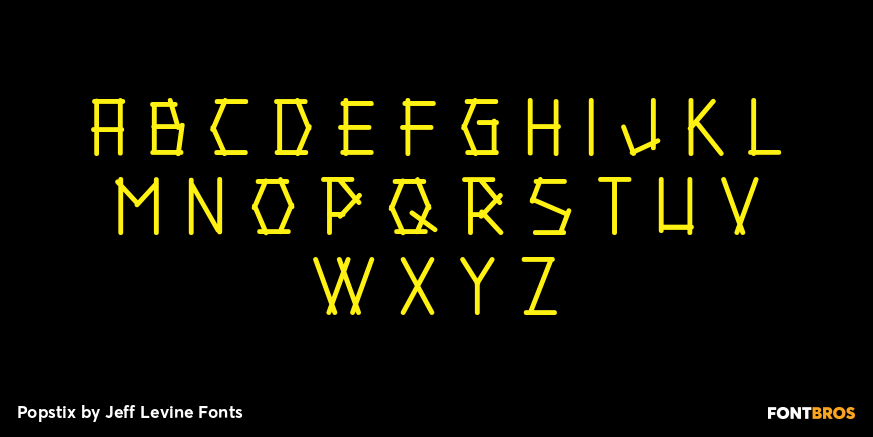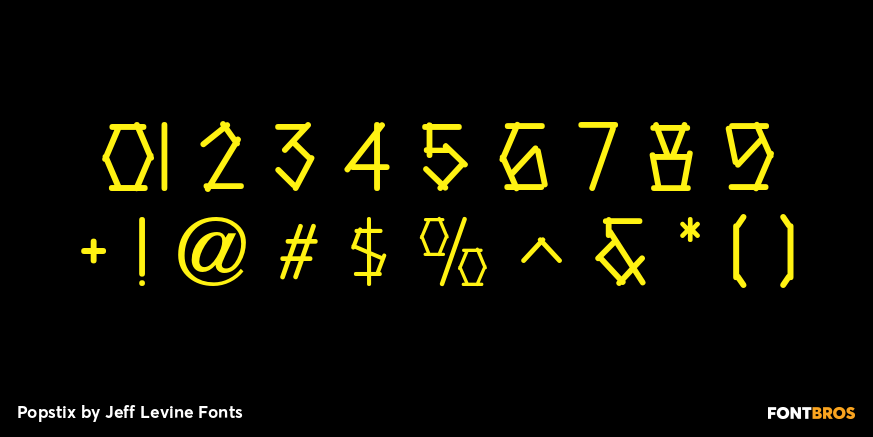
Popstix
Popstix JNL takes the childhood pastime of creating things with ice cream sticks and transferring that premise to a digital alphabet. From classroom displays to ice cream sales, this charming novelty font evokes the simpler pleasures of our younger years.